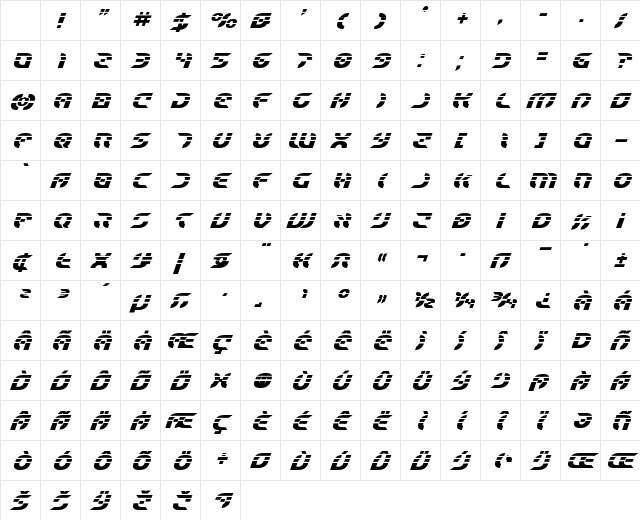
Complete Starfighter Laser Bold Italic glyph index. Displaying only characters natively supported by Starfighter Laser Bold Italic font.
Starfighter Laser is a composed and adaptable typeface that performs quietly and consistently across a wide range of design contexts. The slanted form adds forward momentum and visual energy. Its bold stroke weight gives it real presence on the page.